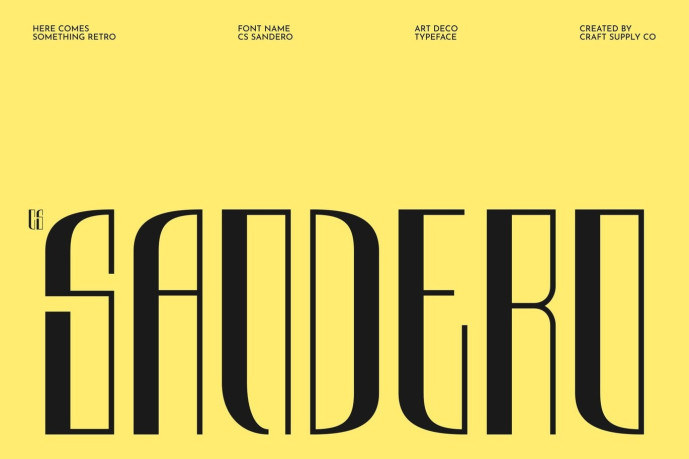
Sandero – Art Deco Font
Designer: Craft Supply Co.
CS Sandero – Elegant Art Deco Display Font: Where Vintage Glamour Meets Modern Sophistication Tall Letterforms with Refined Geometric Balance This is an elegant Art Deco display font inspired by the sophistication of vintage architecture and the glamour of classic design. Featuring tall letterforms, refined curves, and harmonious geometric balance, it captures the distinctive elegance of the Art Deco era while maintaining a clean, contemporary finish. The result is a typeface that feels graceful, luxurious, and effortlessly memorable.
Vintage Inspiration with Contemporary Refinement Rooted in the timeless aesthetics of the 1920s and 1930s, this font transforms classic Art Deco influences into a modern display typeface. Its carefully proportioned forms and subtle decorative details evoke prestige and refinement, making every composition feel polished, stylish, and enduring without appearing overly ornate.
Luxurious Typography with Architectural Elegance By combining elongated proportions, elegant curves, and geometric precision, that creates a sophisticated visual identity that communicates exclusivity and confidence. Its balanced construction allows it to shine in large-format typography, where its graceful details and architectural influence become striking focal points.
Perfect for Luxury Packaging and Premium Visual Identities Ideal for restaurants, hotels, editorial layout, premium packaging, invitations, posters, logos, magazine covers, and high-end visual identities. Its elegant Art Deco character makes it perfect for designs that seek to convey sophistication, prestige, and timeless glamour.